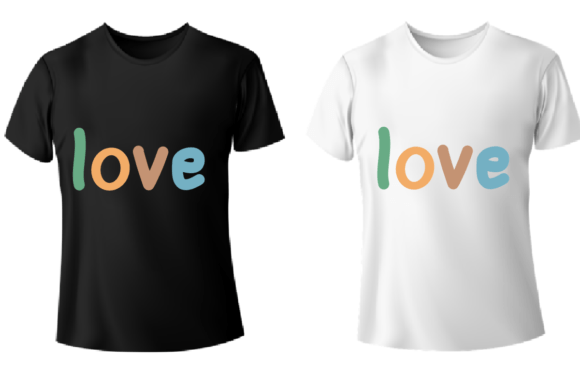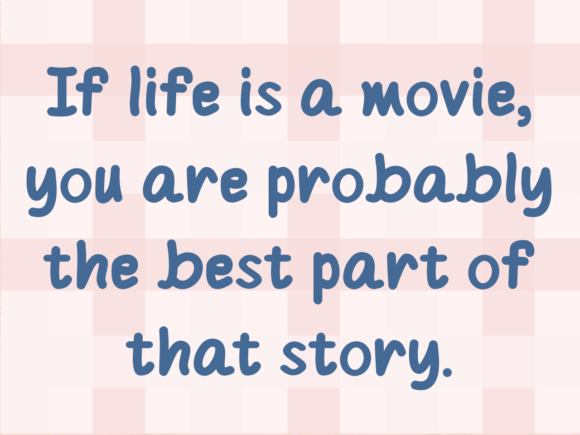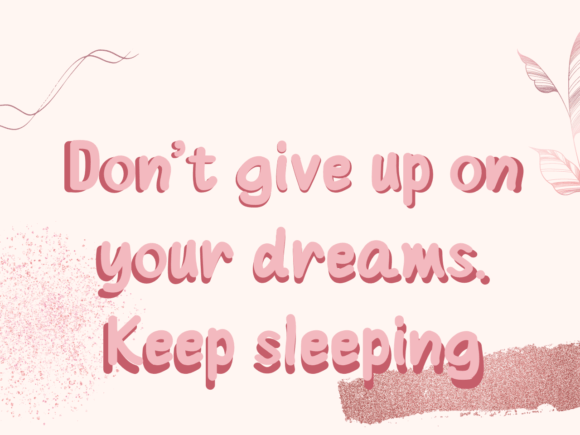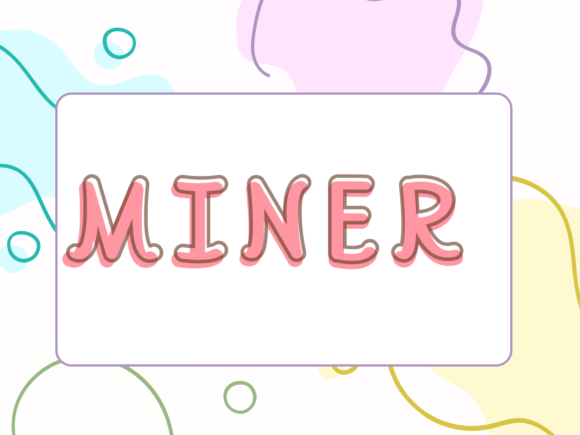
Introduction to Miner Font
Miner is a childish, easy-to-read display font that conveys impeccable friendliness.
Key Features of Miner Font
Why Choose Miner Font?
Miner Font offers exceptional quality and versatility, making it a valuable addition to your design toolkit. Whether you’re creating for personal projects or commercial use, Miner Font delivers professional results.